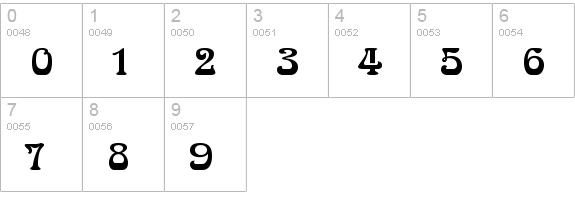
Arnold Boecklin Font Details
Arnold Boecklin font is a unique and elegant typeface that exudes a sense of artistic flair and sophistication. With its distinctive and ornate letterforms, this font is perfect for adding a touch of creativity and class to any design project. The flowing lines and intricate details of Arnold Boecklin make it a standout choice for headlines, logos, and other display purposes. The best part is that Arnold Boecklin font is available for free download at FontsMarket.com. This means that you can easily access this stunning typeface and use it in your projects without any cost. Whether you're a designer looking to add a special touch to your work or a creative individual seeking a beautiful font for personal use, Arnold Boecklin is a fantastic choice that won't break the bank. Download it today and elevate your designs with this exquisite and freely available typeface.